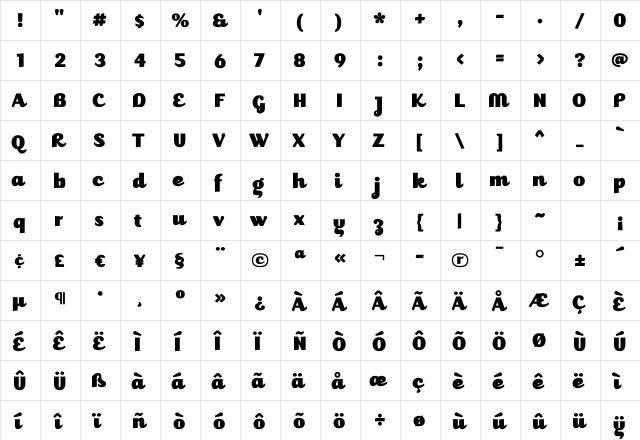
JuicyBlack Regular
Design Context for JuicyBlack Typeface
JuicyBlack offers clean, dependable letterforms without strong stylistic allegiance, making it a practical choice for designers who need flexibility.
Pro Tip: Pair JuicyBlack with a font of contrasting weight or personality to build a more expressive typographic hierarchy.